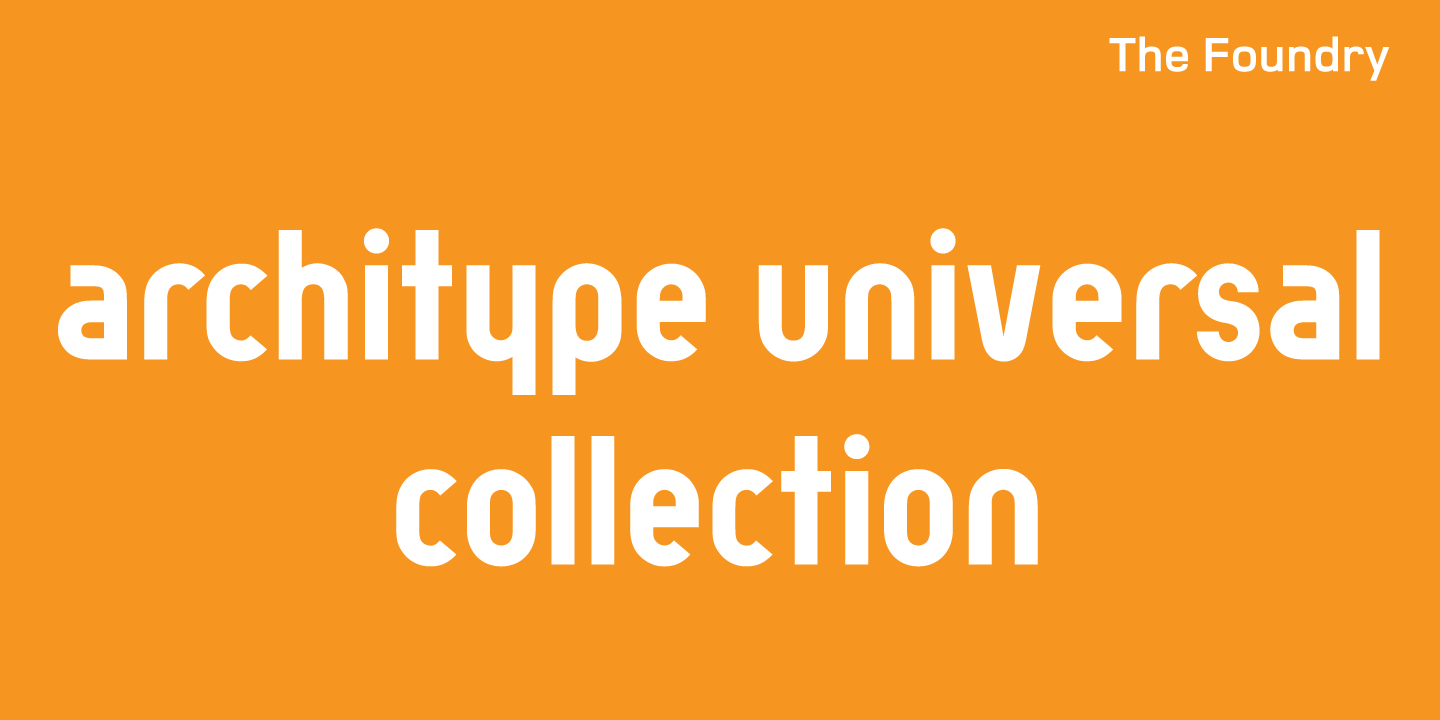
The Architype Ballmer Font is an excellent choice for designs that aim for a bold, distinctive, and often experimental or avant-garde aesthetic. Imagine it gracing the cover of a cutting-edge art publication, adding an unconventional edge to gallery exhibition titles, or bringing a raw, expressive feel to modern art installations. It's also perfectly suited for impactful posters, graphic design portfolios, independent film credits, and any project where you want to convey a sense of artistic individuality, intellectual curiosity, and an unapologetic, unique voice. Its often strong, irregular forms, and assertive presence make it ideal for conveying confidence and a memorable statement.
What makes the Architype Ballmer Font so exciting is its ability to instantly capture attention with its unconventional yet compelling letterforms. It frequently features highly stylized elements, perhaps resembling deconstructed forms or bold brush strokes, that give it a distinctive personality, making it a true showstopper for display purposes. This font has a powerful and artistic presence that can instantly elevate your design, making it feel both sophisticated and daring. It’s designed to be a focal point, ensuring your message is not just seen, but remembered for its distinctive and raw flair.
The Architype Ballmer Font family typically focuses on a few impactful weights, as its primary purpose is high-impact display use rather than extensive body text. It often includes unique ligatures or stylistic alternates that allow for highly customized and visually dynamic typographical compositions, enhancing its expressive appeal. These features empower designers to create truly unique and artistic headlines, ensuring the Architype Ballmer Font Free Download can adapt to a wide array of projects while maintaining its signature, bold charm.